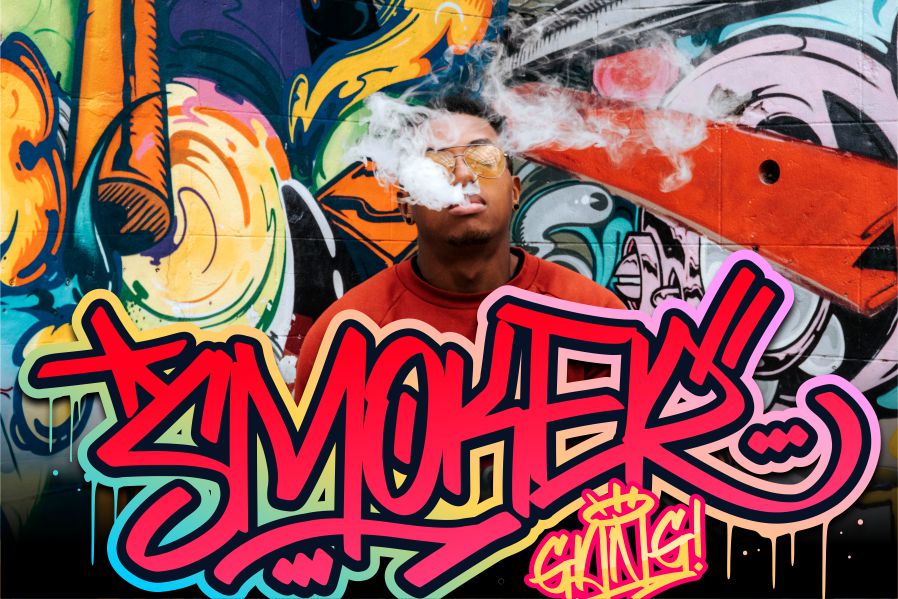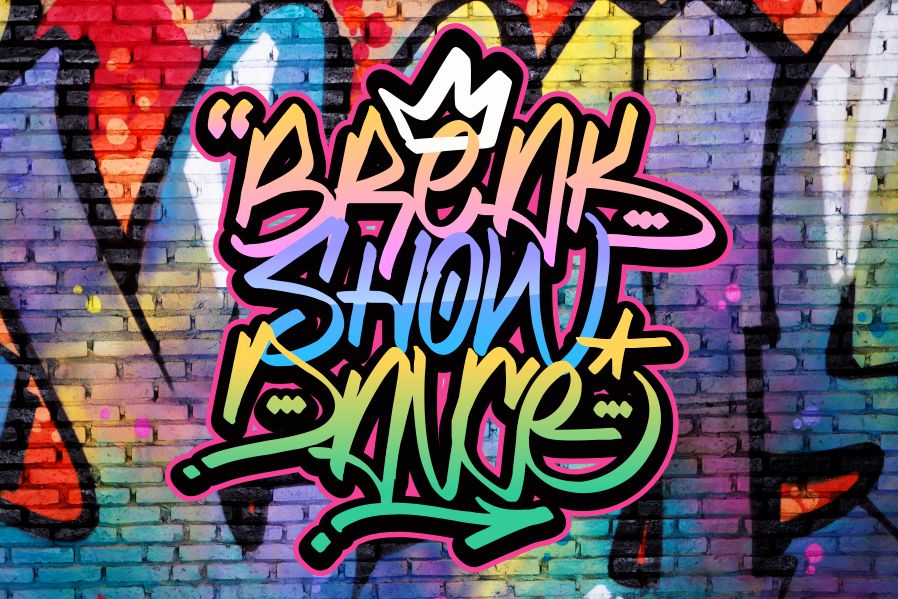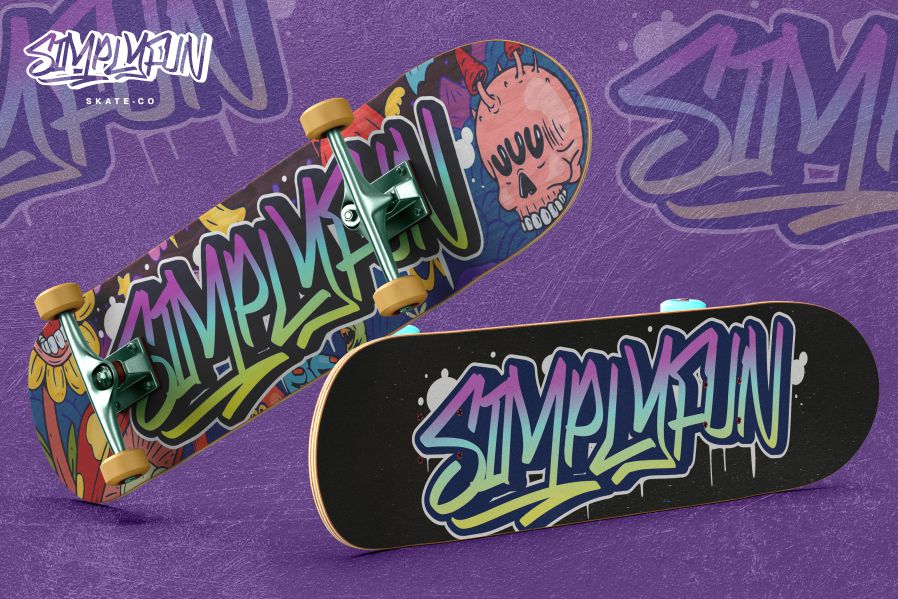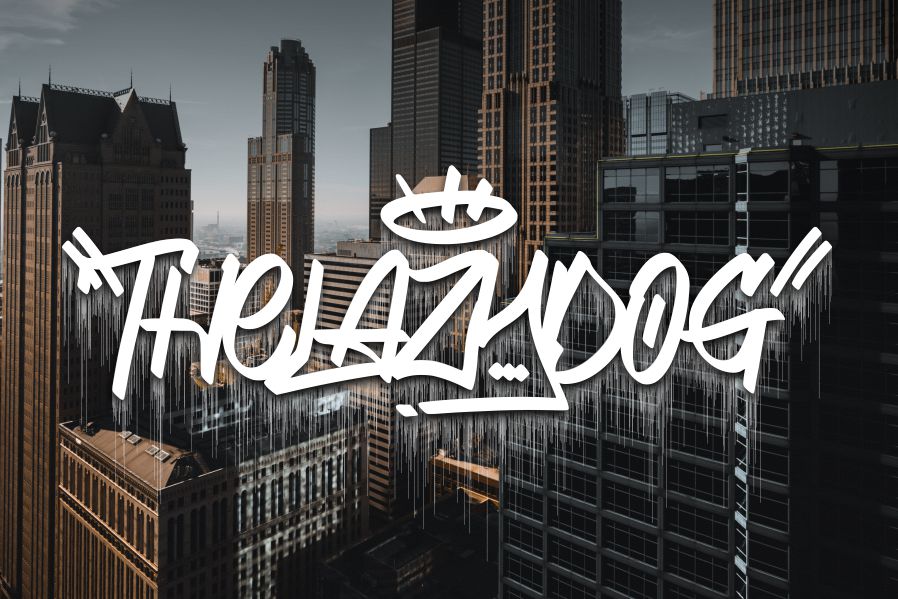
Hokia Font
Hokia Display Font
This is a Graffiti Display Font. Hokia is perfect for product packaging, branding project, magazine, social media, logos, or just used to express words above the background. This font is PUA encoded, which means you can access all of the glyphs and swashes with ease!